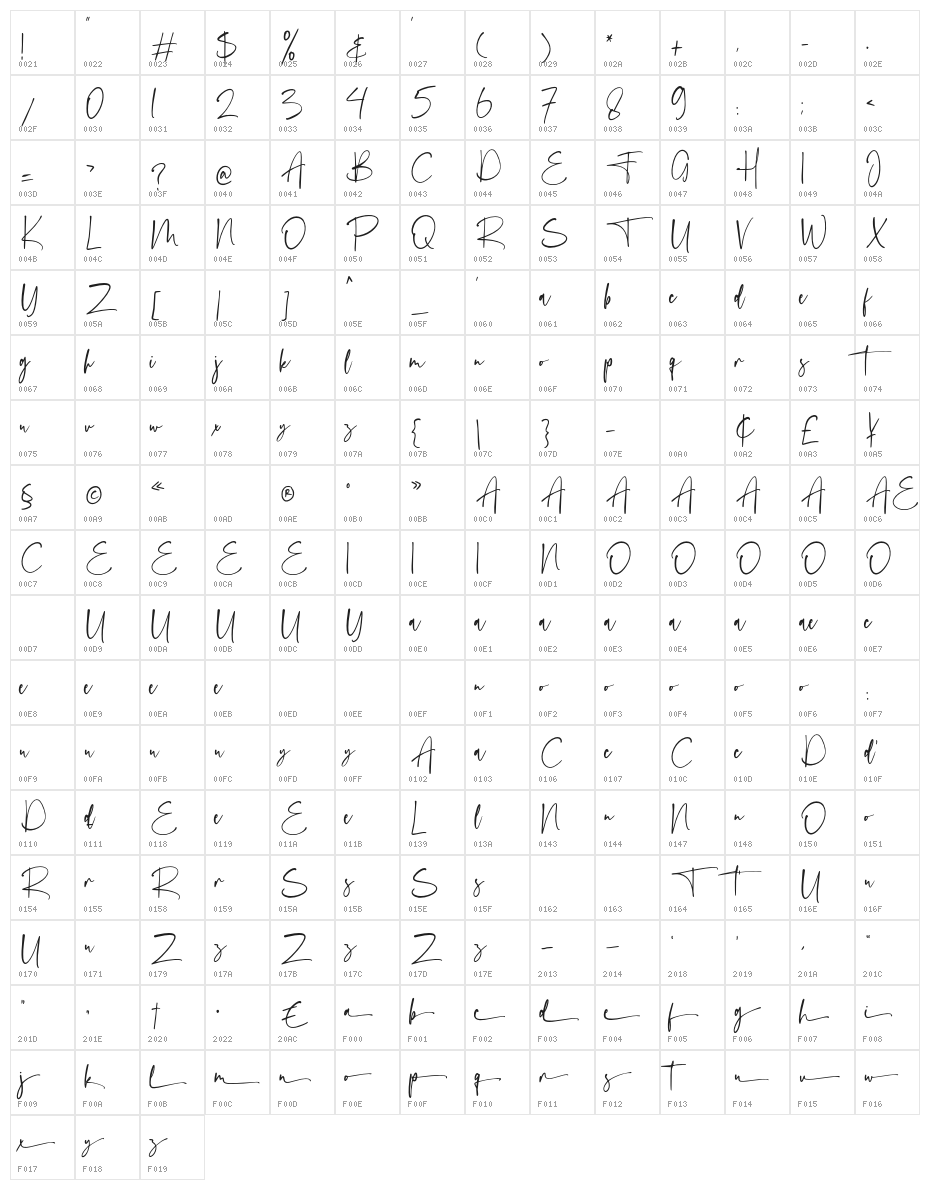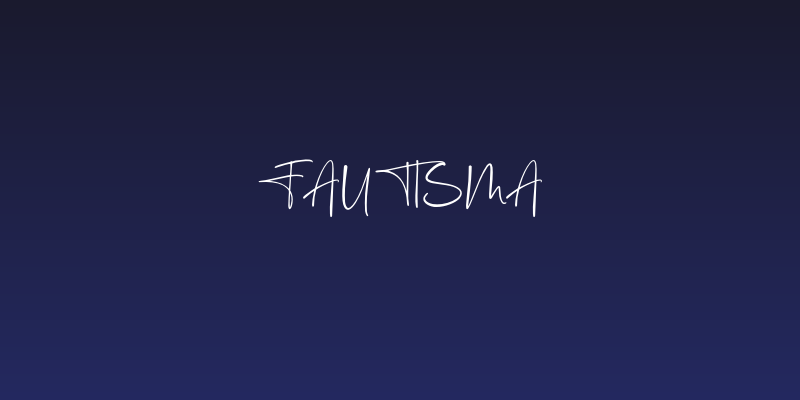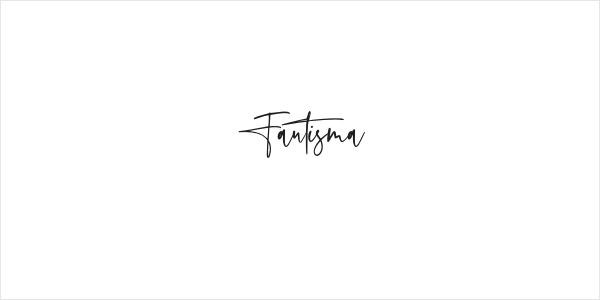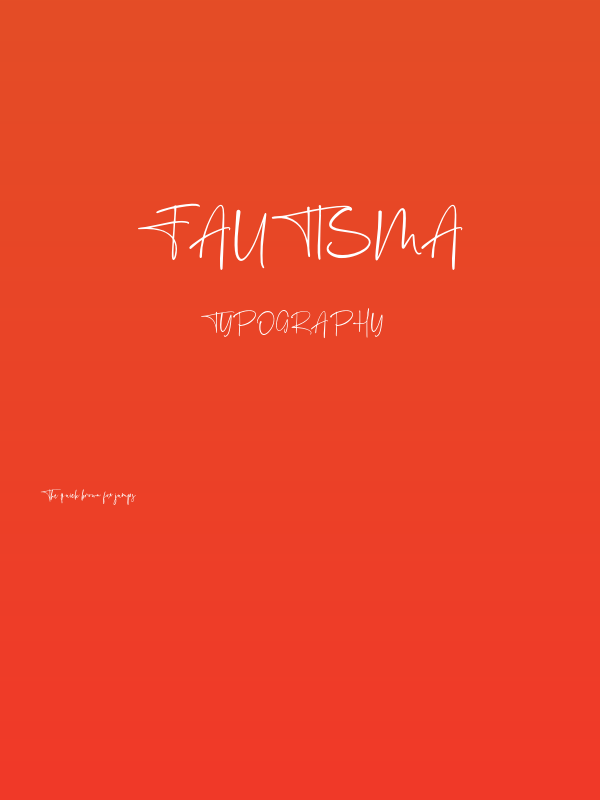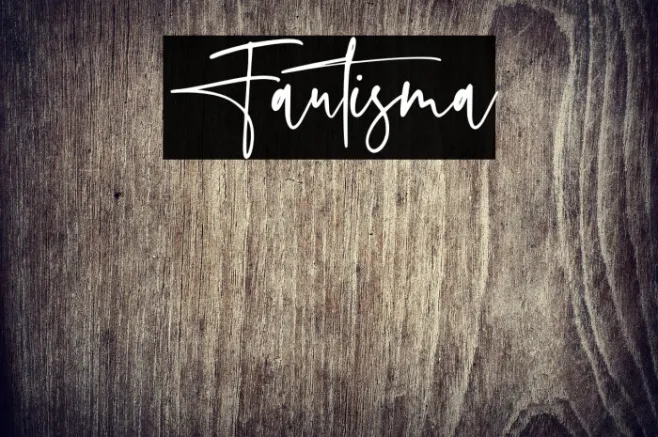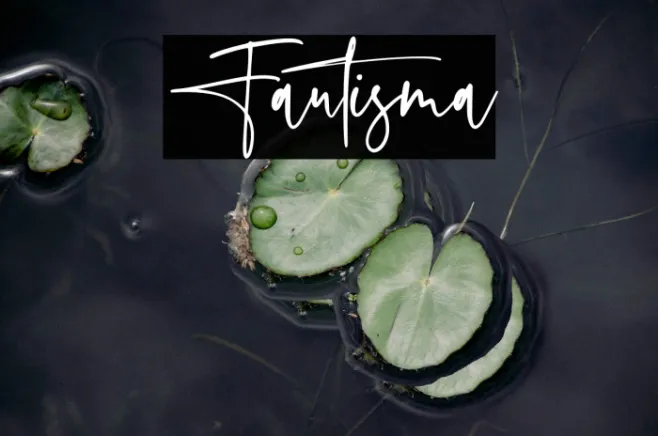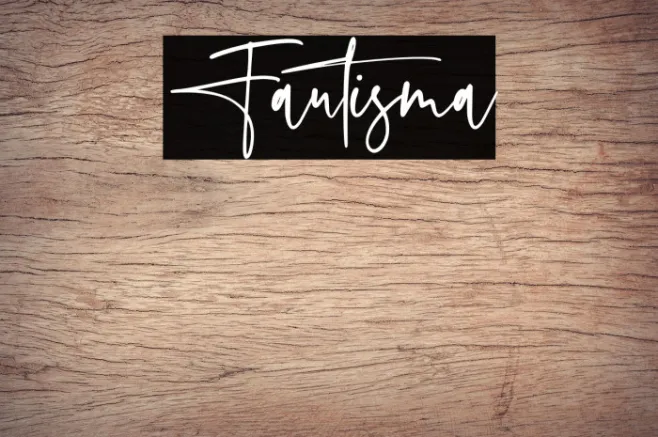
Fautisma Font
Fautisma Description
This font features a playful and dynamic handwritten style, characterized by its fluid and irregular strokes. The uppercase letters are tall and slightly slanted, giving a sense of movement and energy. The lowercase letters maintain a consistent flow, with some characters extending below the baseline, adding to the casual and informal feel. The numerals are bold and distinct, matching the overall lively aesthetic. Special characters are creatively integrated, maintaining the font's unique personality. This font is perfect for projects that require a personal and approachable touch.
| Proposed Projects | Ideal for greeting cards, invitations, personal branding, and creative social media graphics. |